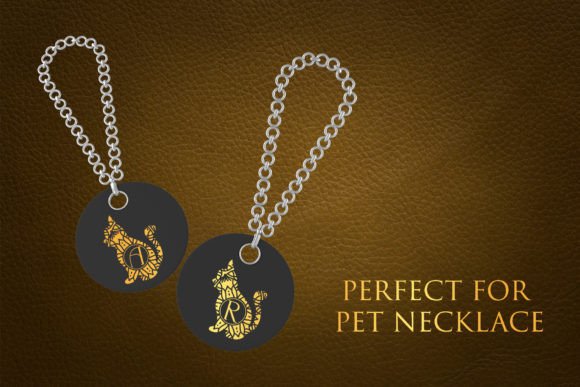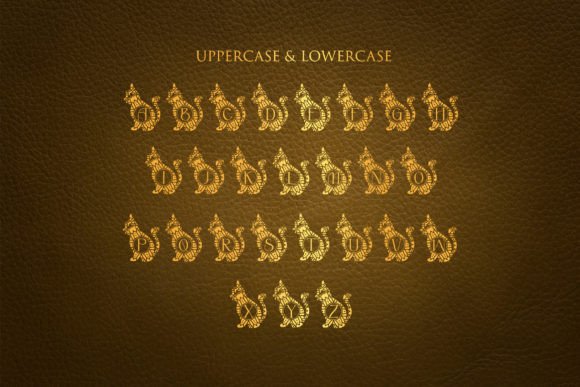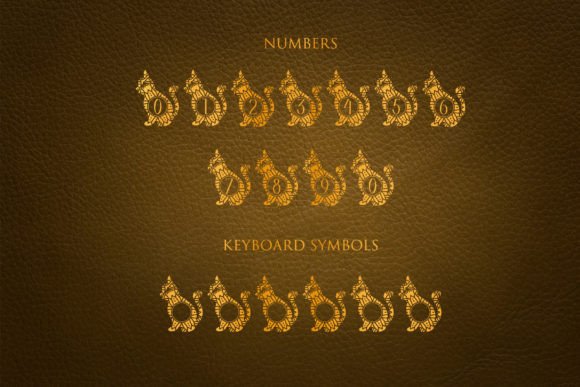
Casual Cat Mandala Monogram Font: The Purrfect Choice for Feline Fanatics
Are you a cat lover looking for a unique and playful font to elevate your creative projects? Look no further than the Casual Cat Mandala Monogram Font! This delightful decorative typeface is specifically designed for feline fanatics, and it’s sure to add a touch of whimsy and charm to any design.
What Makes Casual Cat Mandala Monogram Font So Special?
The Casual Cat Mandala Monogram Font is a one-of-a-kind typeface that combines the elegance of mandalas with the playfulness of cats. Each letter is carefully crafted to feature adorable cat illustrations, making it the ultimate cat-lovers font. Whether you’re a designer, crafter, or simply a cat enthusiast, this font is sure to delight.
The Casual Cat Mandala Monogram Font is the perfect addition to any creative project dedicated to kittens. From invitations and greeting cards to posters and social media graphics, this font will add a touch of personality and flair to your designs. Imagine creating a custom cat-themed party invitation, complete with colorful mandalas and cute cat illustrations – it’s sure to be a hit with fellow feline fanatics!
Key Features of Casual Cat Mandala Monogram Font
- Unique and playful design: Each letter features an adorable cat illustration, making it a standout font for any design.
- Mandala-inspired: The font combines the elegance of mandalas with the playfulness of cats, creating a truly unique typeface.
- High-quality design: The font is carefully crafted to ensure high-quality design, making it perfect for printing and digital use.
- Easily customizable: The font is easy to customize, allowing you to adjust the size, color, and style to suit your design needs.
Ideas for Using Casual Cat Mandala Monogram Font
The Casual Cat Mandala Monogram Font is versatile and can be used in a variety of creative projects, including:
- Cat-themed party invitations: Create custom invitations featuring adorable cat illustrations and mandalas.
- Feline-inspired art: Use the font to create stunning artwork featuring cat illustrations and mandalas.
- Social media graphics: Add a touch of personality to your social media graphics with this playful font.
- Greeting cards: Create custom greeting cards featuring cat illustrations and mandalas.